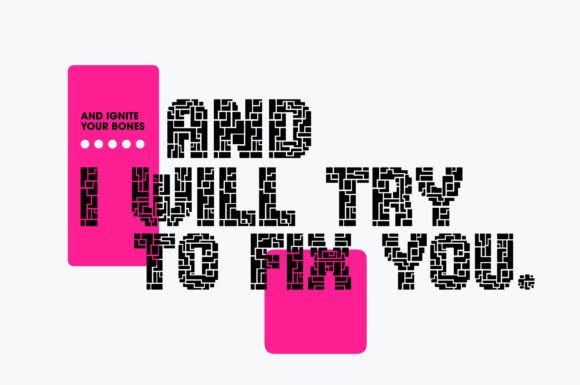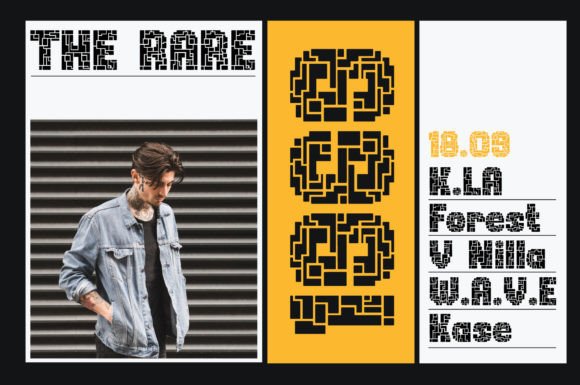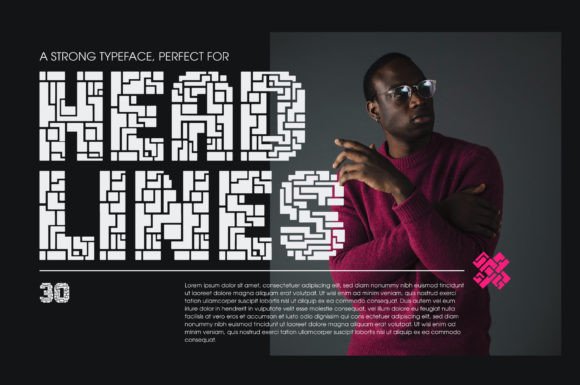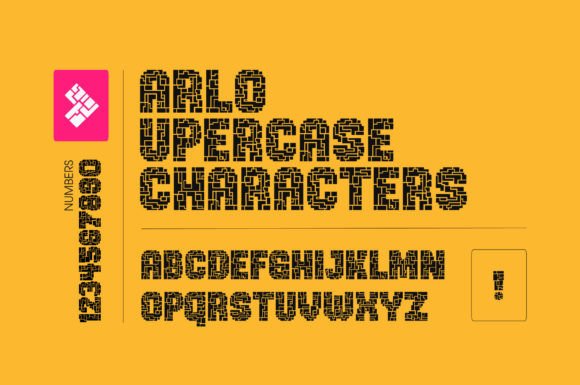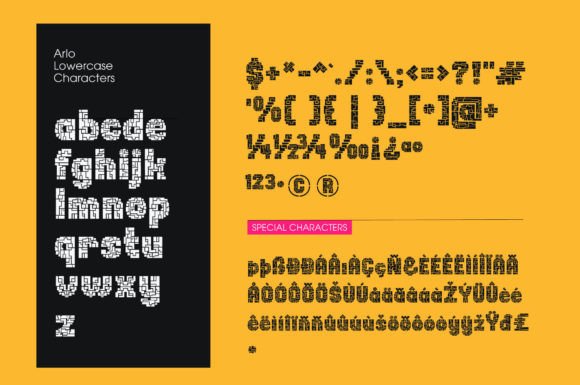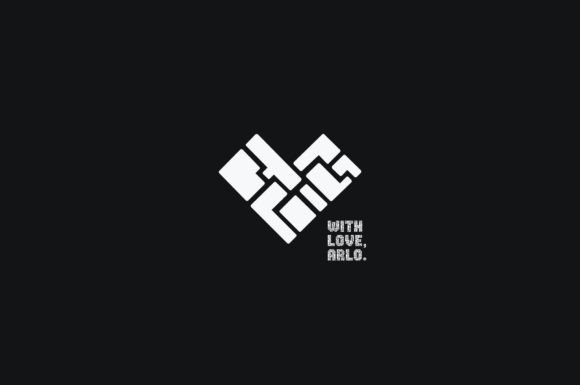
Introducing Arlo Font: The Ultimate Puzzle-Inspired Typeface for Creative Designs
In the world of typography, there’s no shortage of fonts that can make your designs stand out. However, if you’re looking for something truly unique and attention-grabbing, look no further than Arlo Font. This decorative typeface is puzzle-inspired, making it perfect for designers and crafters who want to add a touch of creativity to their work.
What Makes Arlo Font So Unique?
Arlo Font is unlike any other typeface out there. Each letter is distinctive and can stand on its own, making it a true showstopper. The puzzle-inspired design of Arlo Font will keep viewers engaged and interested, making it perfect for attention-grabbing posters, logos, headlines, apparel, packaging, and virtually anything you can imagine.
Whether you’re a designer looking to create a stunning visual display or a crafter seeking to add a personal touch to your projects, Arlo Font is the perfect choice. Its unique design ensures that your work will stand out from the crowd, making it a great way to express your creativity and showcase your skills.
Key Features of Arlo Font
• Unique Puzzle-Inspired Design: Each letter is designed to resemble a puzzle piece, making it a standout in any design.
• Distinctive Letters: Every letter in the Arlo Font is distinctive and can stand on its own, making it perfect for use in a variety of creative projects.
• Attention-Grabbing: The puzzle-inspired design of Arlo Font is sure to grab attention and keep viewers engaged.
• Versatile: Arlo Font can be used in a variety of projects, including posters, logos, headlines, apparel, packaging, and more.
Uses for Arlo Font
Arlo Font is incredibly versatile and can be used in a wide range of creative projects. Here are just a few ideas to get you started:
• Posters: Create eye-catching posters that will grab attention and leave a lasting impression.
• Logos: Use Arlo Font to create a unique and memorable logo for your business or brand.
• Headlines: Add a touch of creativity to your headlines with Arlo Font.
• Apparel: Create custom t-shirts, hoodies, and other apparel with Arlo Font.
• Packaging: Use Arlo Font to create eye-catching packaging that will stand out on store shelves.
Tips for Using Arlo Font
Here are a few tips for getting the most out of Arlo Font:
• Experiment with Colors: Try pairing Arlo Font with different colors to create a unique and eye-catching design.
• Play with Layouts: Experiment with different layouts to find the one that works best for your design.
• Mix and Match: Try pairing Arlo Font with other fonts to create a unique and interesting design.
Arlo Font is a unique and versatile typeface that’s perfect for designers and crafters who want to add a touch of creativity to their work. Its puzzle-inspired design makes it attention-grabbing and engaging, making it perfect for use in a wide range of creative projects. Whether you’re creating posters, logos, headlines, apparel, packaging, or more, Arlo Font is the perfect choice.